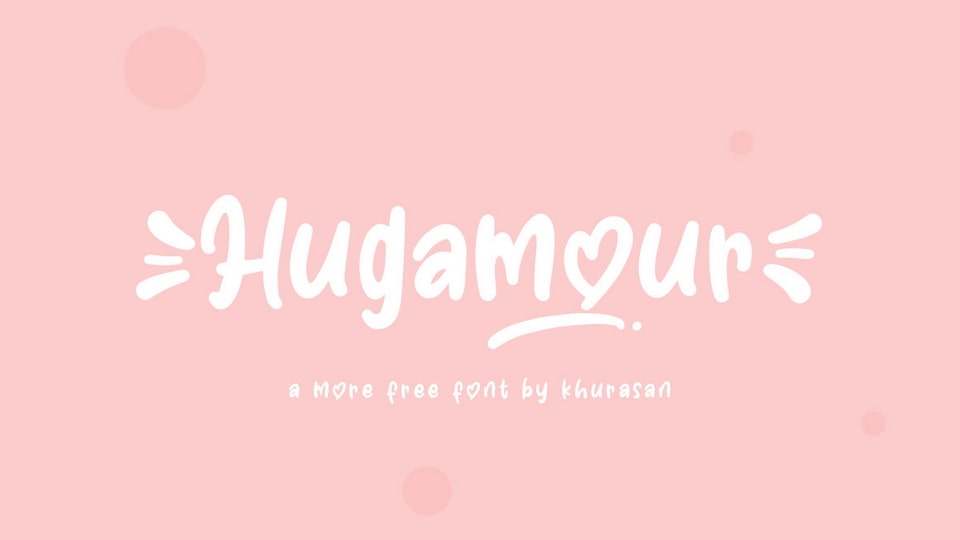
Download Hugamour font, a lovely and playful handwritten typeface. Hugamour is perfect for posters, logos, magazines, book covers, banners, and many more.